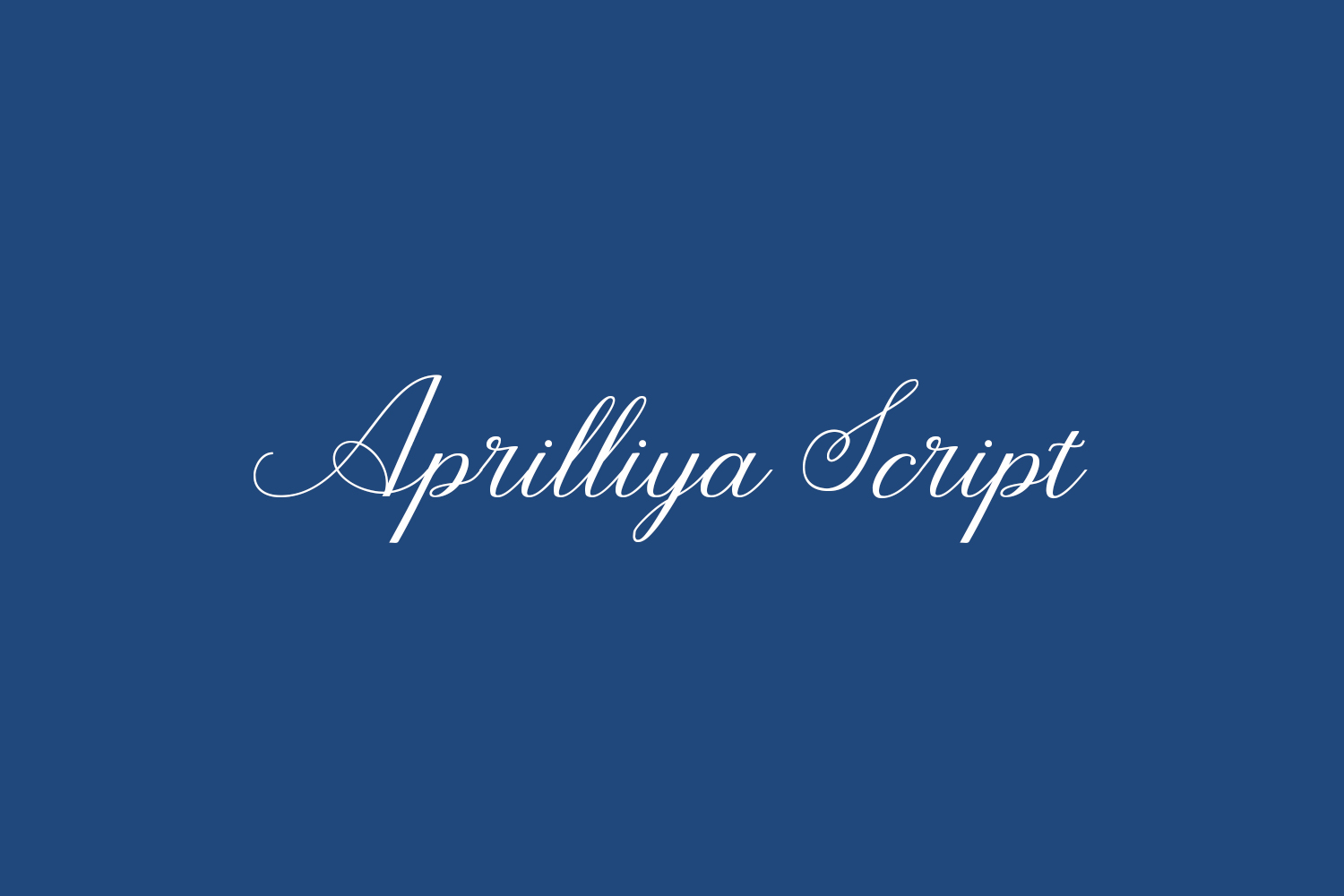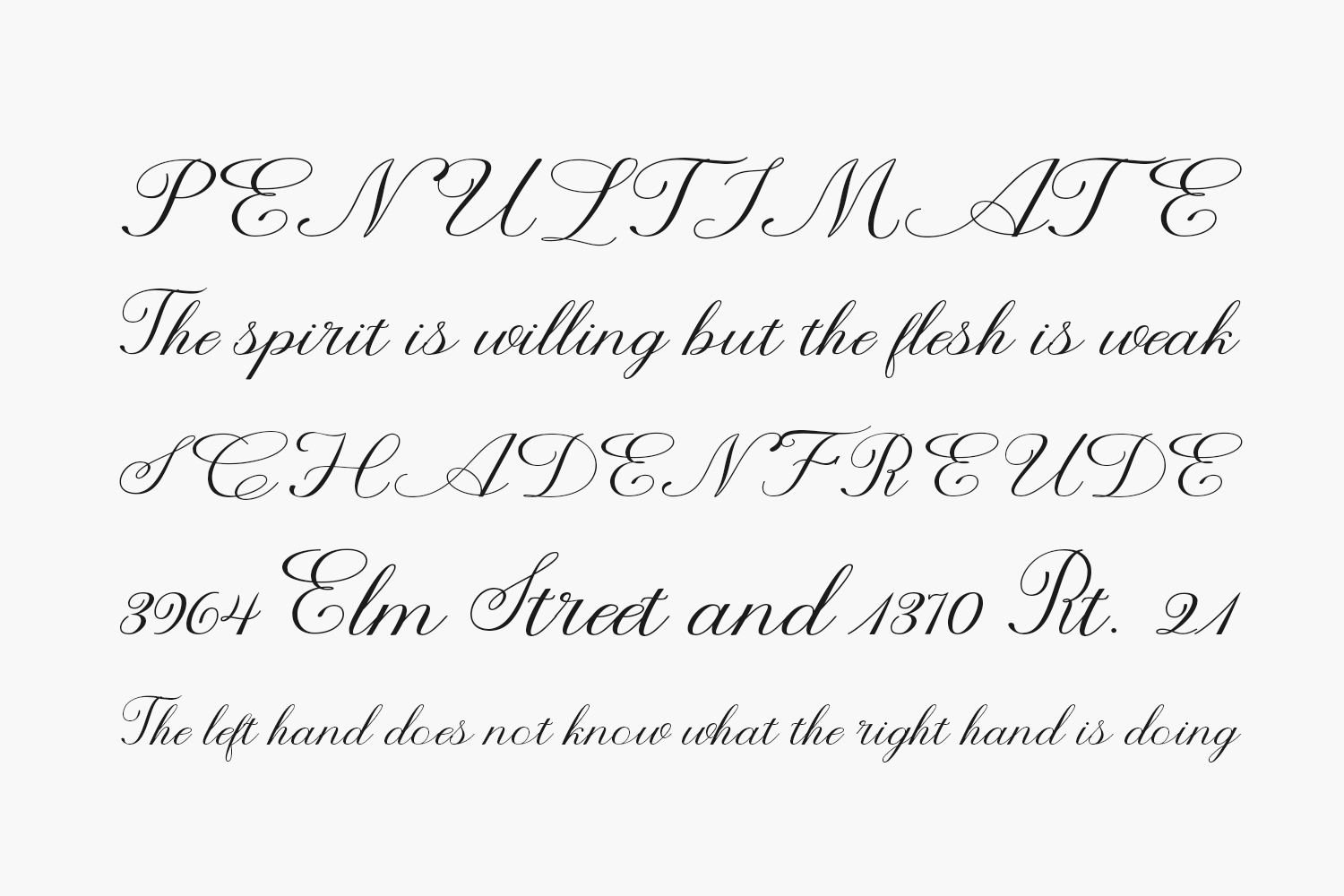
Introducing Aprilliya Script Free Font, a one-of-a-kind script font crafted for versatility. Perfectly tailored for weddings, media projects, book covers, greeting cards, logos, branding, business cards, certificates, and any design endeavor demanding a classic, formal, or luxurious aesthetic. Elevate your creations with the timeless sophistication of Aprilliya. Download the font for free if you need it for personal use or purchase the full version for commercial use.
Designed by Riza Haitami